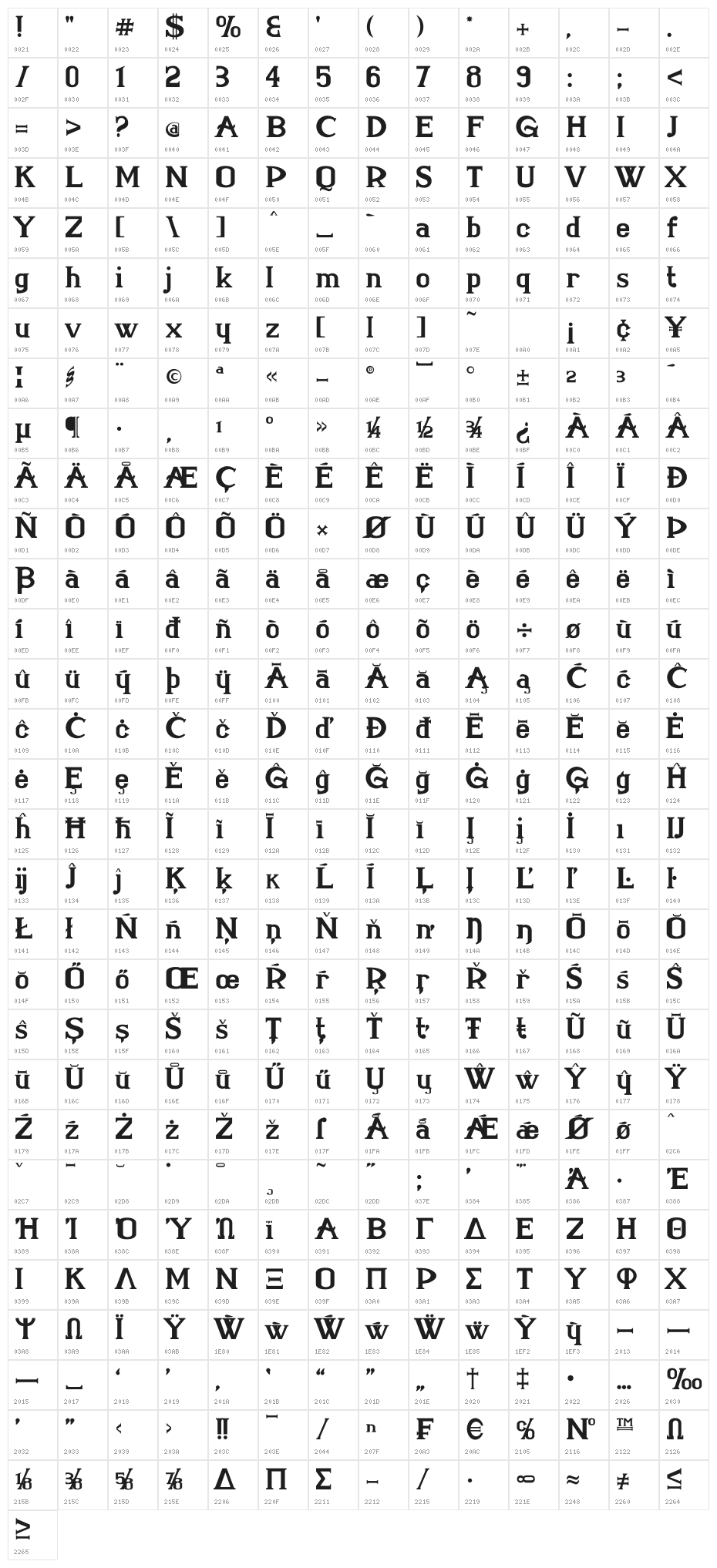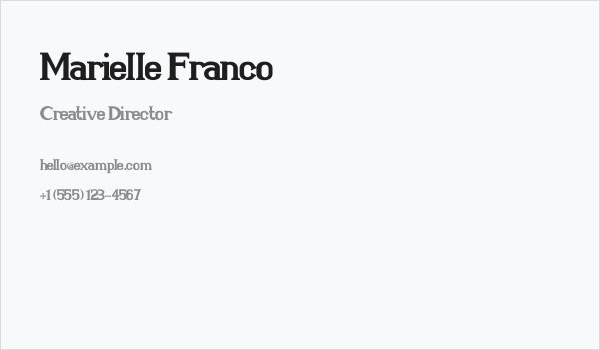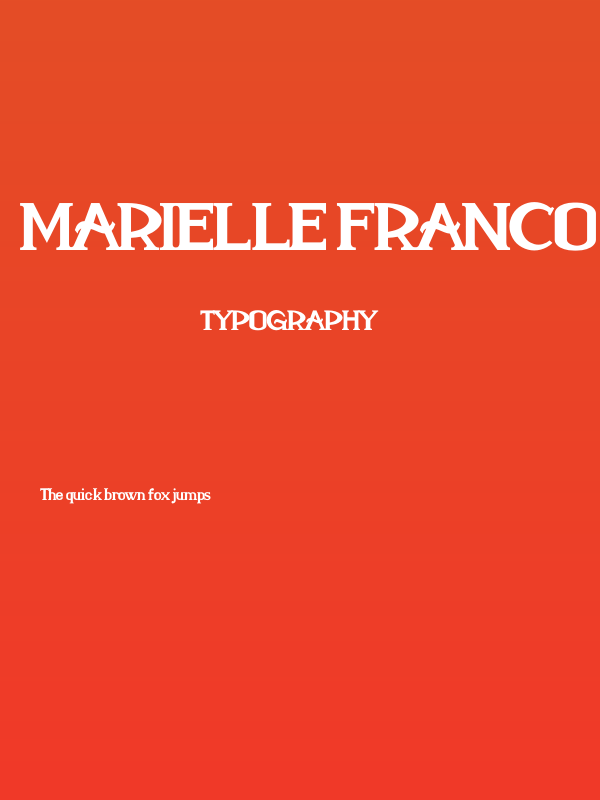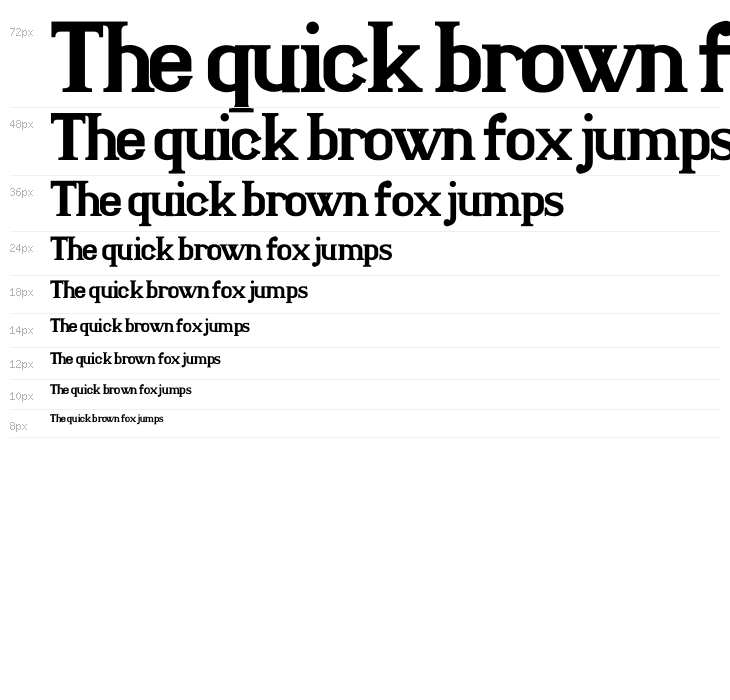
Marielle Franco Font
Marielle Franco Description
This font features a bold and striking design, characterized by its strong serifs and high contrast between thick and thin strokes. The uppercase letters exhibit a classic elegance with a touch of modern flair, while the lowercase letters maintain a consistent style that complements the overall aesthetic. The numerals are clear and distinct, ensuring readability. Special characters are designed with the same attention to detail, making them suitable for various applications. The font's structure is well-balanced, offering a harmonious blend of traditional and contemporary elements.
Overall StyleClassic
Proposed ProjectsIdeal for branding, editorial design, book covers, and high-impact headlines.